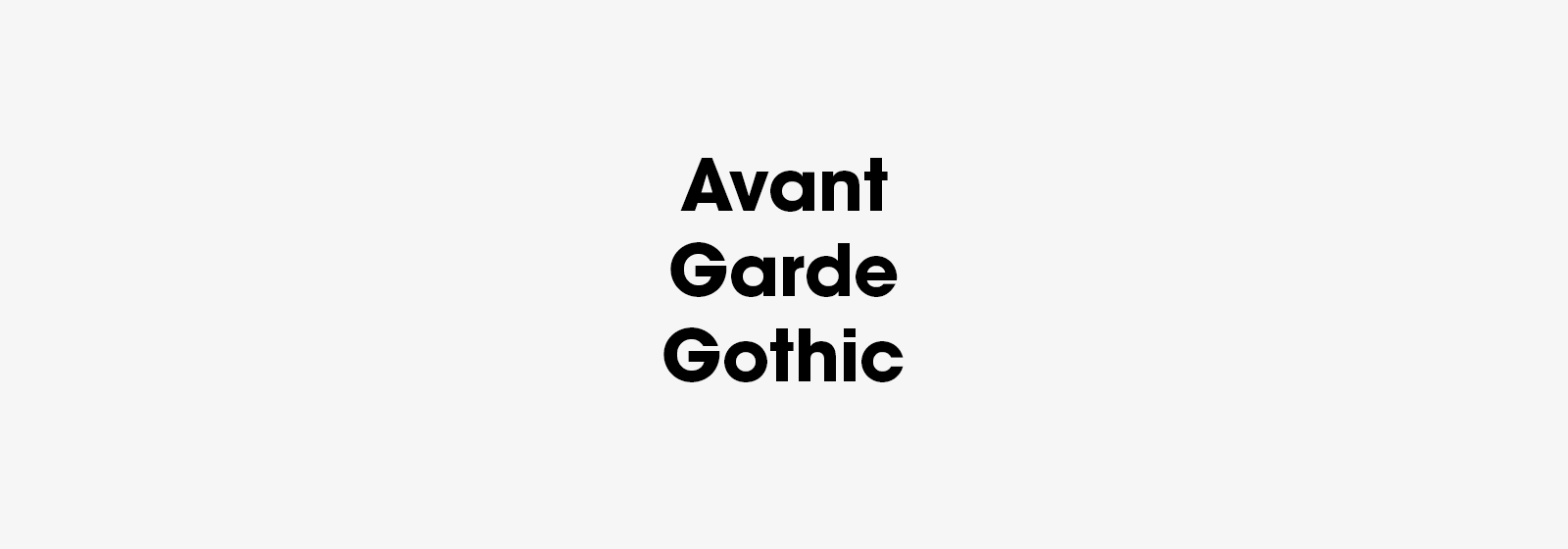
Avant Garde Gothic Font
Avant Garde Gothic is a geometric sans serif typeface known for its clean lines and bold shapes. Originally designed for Avant Garde magazine, the font captures the modernist spirit of the 1970s. Its balanced geometry and tight spacing make it perfect for logos, posters, headlines, and contemporary branding. Designers use Avant Garde Gothic to add a sleek, artistic, and professional touch to their work.